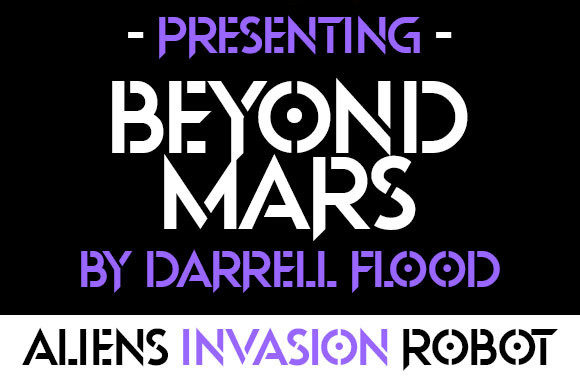
Beyond Mars Font: Elevate Your Designs with a Modern and Angular Display Font
In the world of typography, a font can make or break a design. For designers and crafters looking for a modern and angular display font that exudes a clean and crisp style, Beyond Mars Font is an excellent choice. This versatile font is perfect for a wide range of applications, from logotype and headlines to corporate identity, brand identity, and various creative design projects.
What is Beyond Mars Font?
Beyond Mars Font is a contemporary display font designed to make a statement. Its modern and angular style gives it a fresh and edgy look, making it ideal for designers who want to add a touch of sophistication to their work. The font’s clean and crisp lines ensure that it remains legible even at large sizes, making it perfect for headlines, titles, and logotypes.
Key Features of Beyond Mars Font
- Modern and Angular Style: Beyond Mars Font boasts a modern and angular design that gives it a unique and edgy look.
- Clean and Crisp Lines: The font’s clean and crisp lines ensure that it remains legible even at large sizes.
- Versatile: Beyond Mars Font is suitable for a wide range of applications, from logotype and headlines to corporate identity, brand identity, and various creative design projects.
- High-Quality Design: The font is designed with precision and attention to detail, ensuring that it looks great in any design.
Use Cases for Beyond Mars Font
Beyond Mars Font is an incredibly versatile font that can be used in a variety of design projects. Here are some examples of how you can use this font:
- Logotype and Headlines: Use Beyond Mars Font to create stunning logotypes and headlines that grab attention.
- Corporate Identity: The font’s modern and angular style makes it perfect for corporate identity designs, such as business cards, letterheads, and brochures.
- Brand Identity: Beyond Mars Font can help you create a strong brand identity that stands out from the competition.
- Apparel Industry: The font is suitable for use in the apparel industry, including t-shirt designs, hoodies, and other clothing items.
- Poster and Print Design: Use Beyond Mars Font to create eye-catching posters, flyers, and other print materials.
- Movie and Game Titles: The font’s modern and edgy style makes it perfect for movie and game titles.
- Magazine and Book Covers: Beyond Mars Font can add a touch of sophistication to magazine and book covers.
- Comics and Cartoons: The font’s bold and angular style makes it suitable for use in comics and cartoons.
- Social Media and Web Design: Use Beyond Mars Font to create stunning social media graphics and website headers.
Why Choose Beyond Mars Font?
There are many fonts available that offer a modern and angular style, but Beyond Mars Font stands out from the rest. Here are some reasons why you should choose Beyond Mars Font:
- Unique Design: Beyond Mars Font has a unique design that sets it apart from other fonts.
- High-Quality: The font is designed with precision and attention to detail, ensuring that it looks great in any design.
- Versatile: Beyond Mars Font is suitable for a wide range of applications, making it a great addition to any designer’s toolkit.
- Easily Readable: The font’s clean and crisp lines ensure that it remains legible even at large sizes.
Beyond Mars Font is a modern and angular display font that is perfect for designers and crafters looking to add a touch of sophistication to their work. Its clean and crisp style, combined with its versatility, makes it an excellent choice for a wide range of design projects. Whether you’re creating a logotype, headline, or corporate identity, Beyond Mars Font is sure to impress.